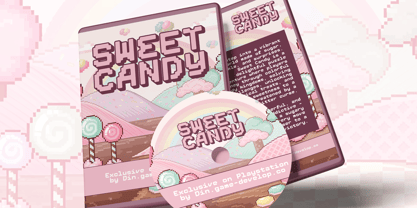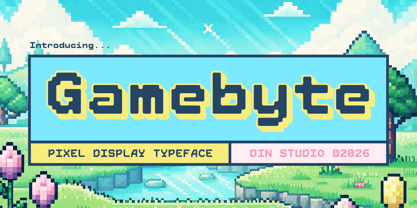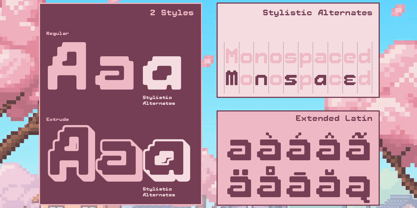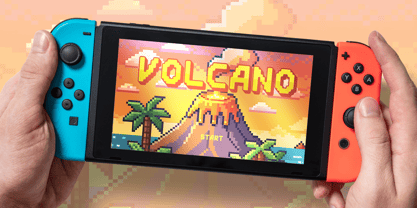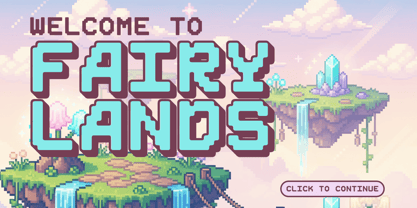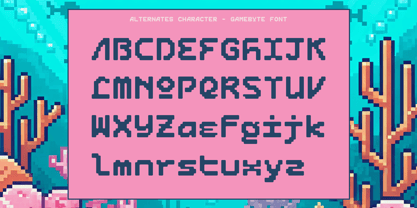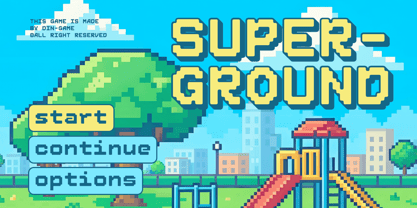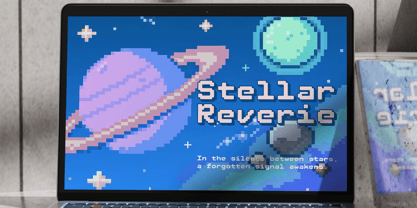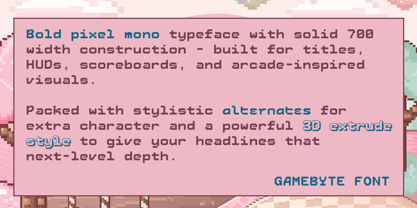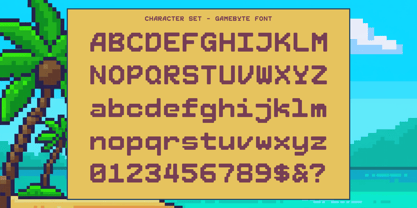
Gamebyte
The Gamebyte Font Family was designed by Donis Miftahudin and published by Din Studio. Gamebyte contains 2 styles and family package options. More about this family
Gamebyte is a versatile pixel display font that captures the timeless charm of retro gaming while delivering a clean and modern edge for today’s design needs. Inspired by the iconic visual style of classic platform games, this font brings a nostalgic yet polished look that instantly evokes the golden era of 8-bit and 16-bit adventures. Carefully designed with a balanced weight that is not overly bold, Gamebyte offers a comfortable visual rhythm that makes it highly readable without losing its playful personality. In addition, enjoy the features here. Features: Multilingual Supports PUA Encoded Numerals and Punctuations Gamebyte fits in logos, quotes, branding, posters, and many more designs. Find out more ways to use this font by taking a look at the font preview. Thanks for purchasing our fonts. Hopefully, you have a great time using our font. Feel free to contact us anytime for further information or when you have trouble with the font. Thanks a lot and happy designing.